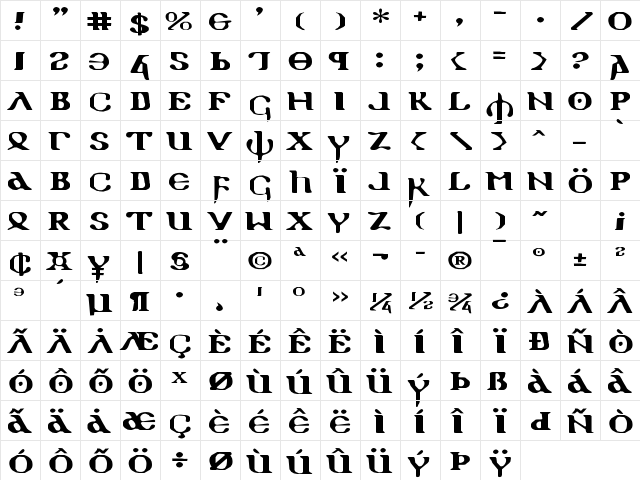
Holy Empire Expanded Expanded
| Designer | Dan Zadorozny |
Holy Empire Expanded is a composed and adaptable typeface that performs quietly and consistently across a wide range of design contexts.